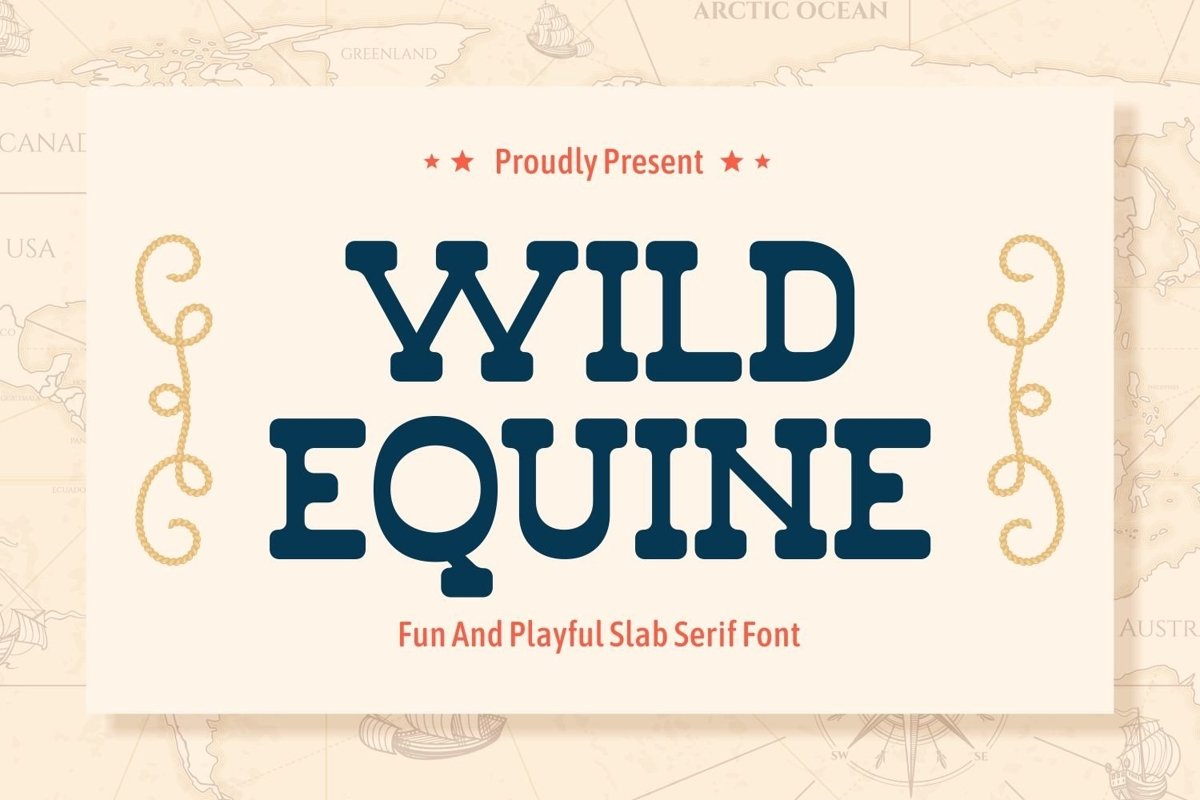
Wild Equine is a slab serif display come with fun and playful themes. This font have round corner characters. It matches applies in some designs such as the logotype, brand, packaging, quotes, poster, t-shirt, book, invitation and more custom design. The features uppercase, lowercase, numeral, punctuation & symbol, multilingual support, PUA encoded (fully accessible without additional design software).